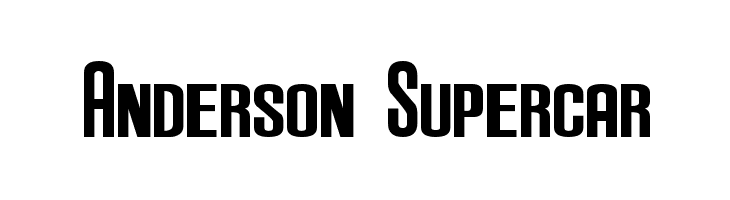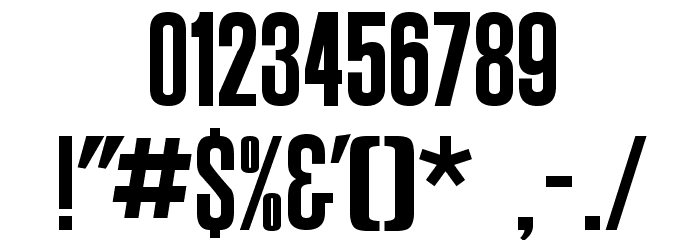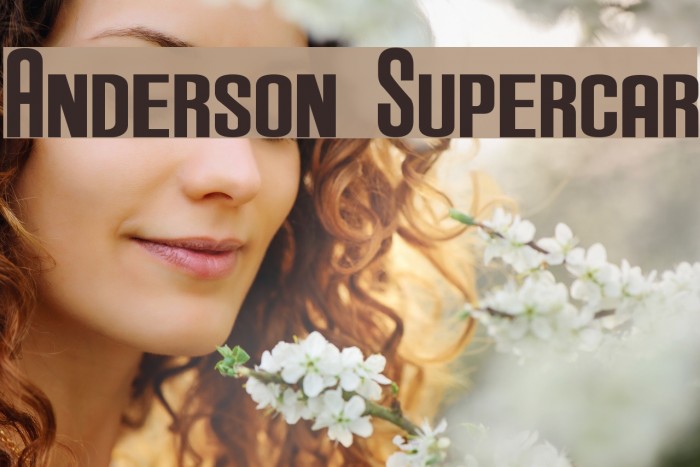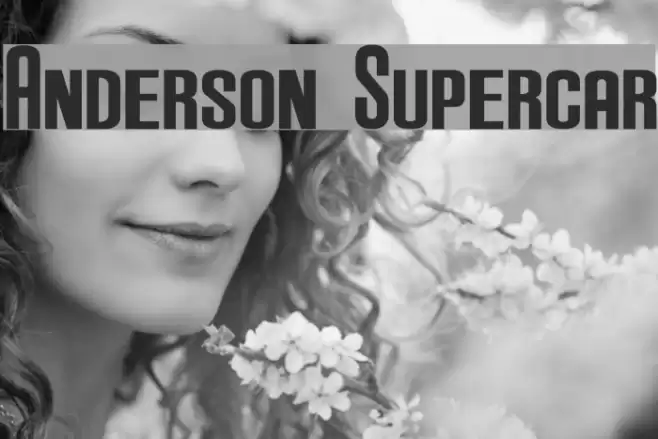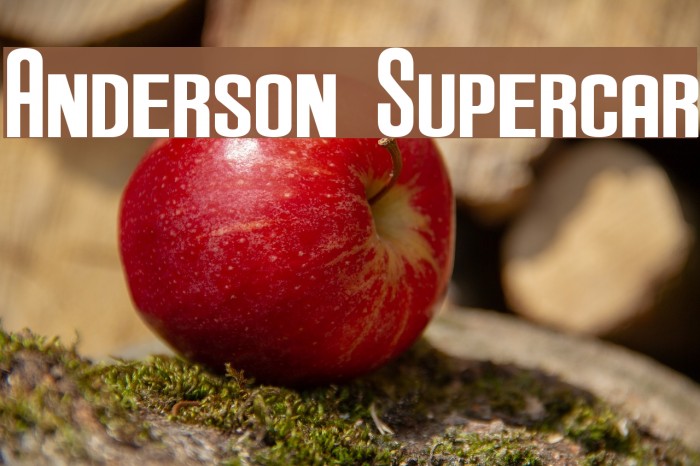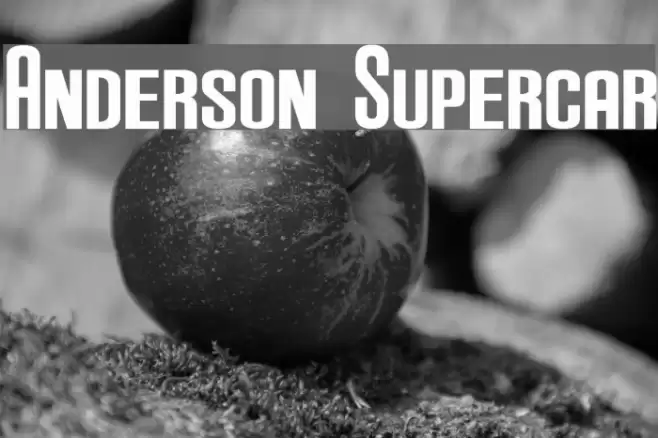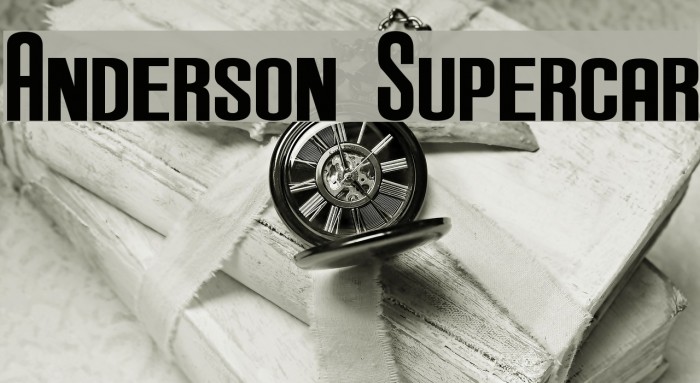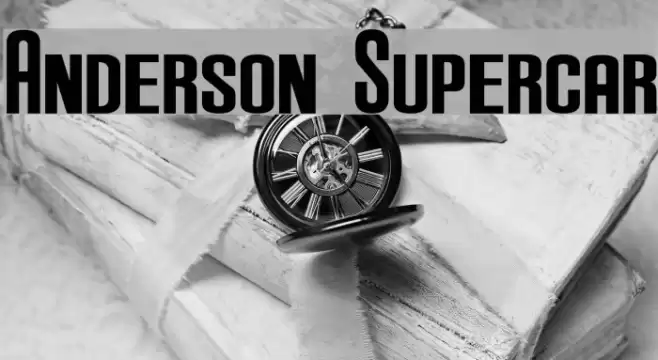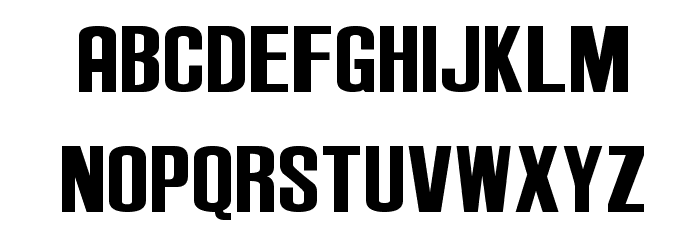
Anderson Supercar Font
Anderson Supercar Description
This font features a bold and impactful design, characterized by thick, uniform strokes that convey strength and modernity. The uppercase letters are tall and commanding, with a slightly condensed appearance that enhances their presence. The numerals are equally robust, maintaining the same boldness and clarity. Special characters are designed with the same attention to detail, ensuring consistency across all glyphs. The overall style is sleek and contemporary, making it suitable for projects that require a strong visual impact.
| Proposed Projects | Ideal for branding, advertising, posters, and any project needing a strong, modern typeface. |